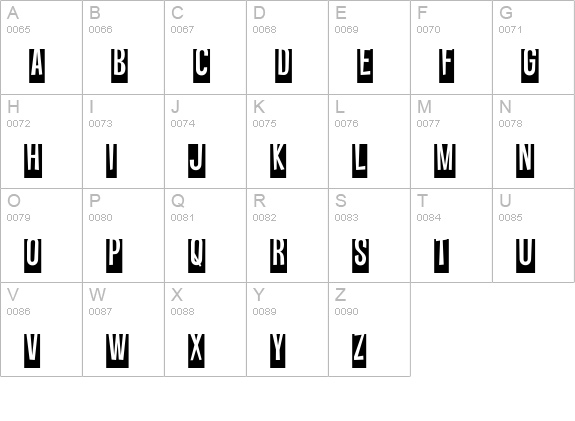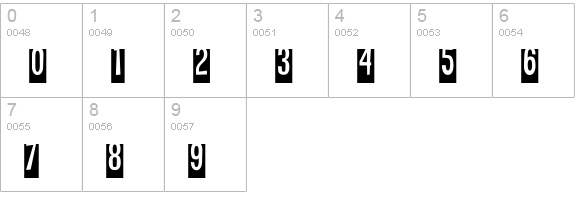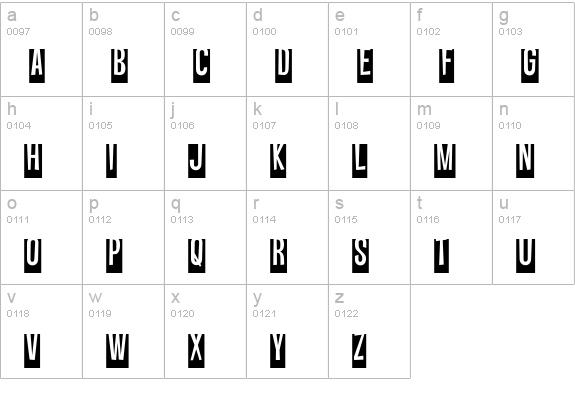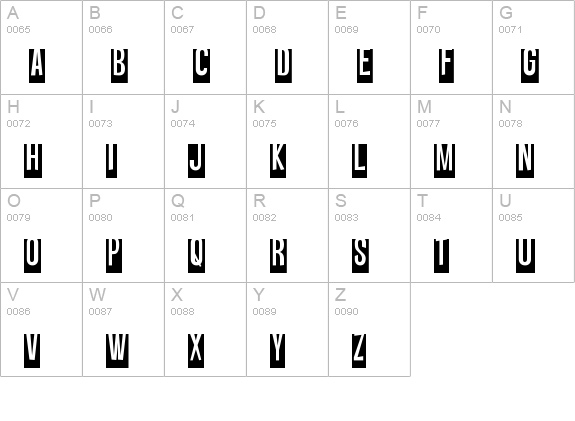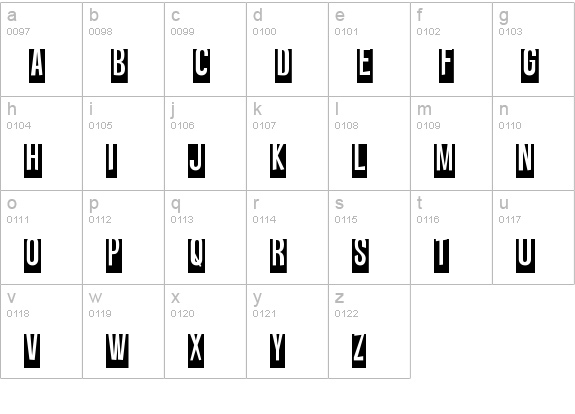
Introducing the mesmerizing Vanishing Boy BTN Reversed Lift font, a truly unique and captivating typeface that will leave a lasting impression on any design project. This font effortlessly combines elegance and playfulness, making it the perfect choice for those seeking to add a touch of whimsy to their creations. The Vanishing Boy BTN Reversed Lift font features beautifully crafted letters that appear to be floating, creating a sense of movement and intrigue. Each character is meticulously designed with attention to detail, ensuring a seamless and visually stunning result. From its graceful curves to its delicate lines, this font exudes a sense of sophistication and creativity. What sets the Vanishing Boy BTN Reversed Lift font apart is its versatility. Whether you're designing a logo, creating eye-catching headlines, or crafting an elegant invitation, this font will effortlessly adapt to any project. Its timeless appeal makes it suitable for a wide range of design styles, from modern and minimalist to vintage and retro. And the best part? The Vanishing Boy BTN Reversed Lift font is available for free download at FontsMarket.com. Yes, you read that right – this extraordinary font can be yours without any cost. So why wait? Unleash your creativity and elevate your designs with the captivating Vanishing Boy BTN Reversed Lift font, freely available for download now!